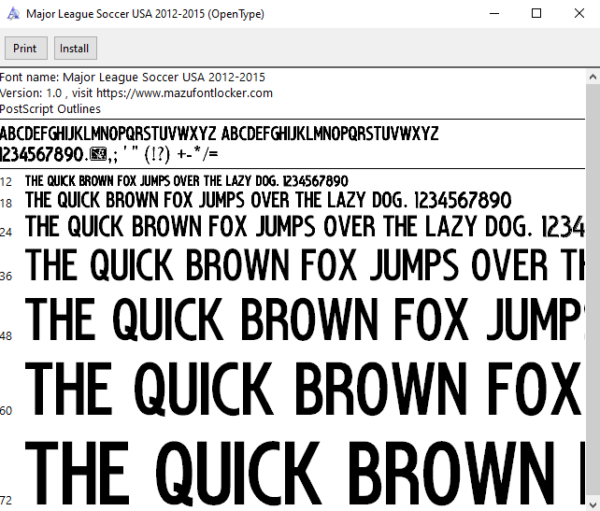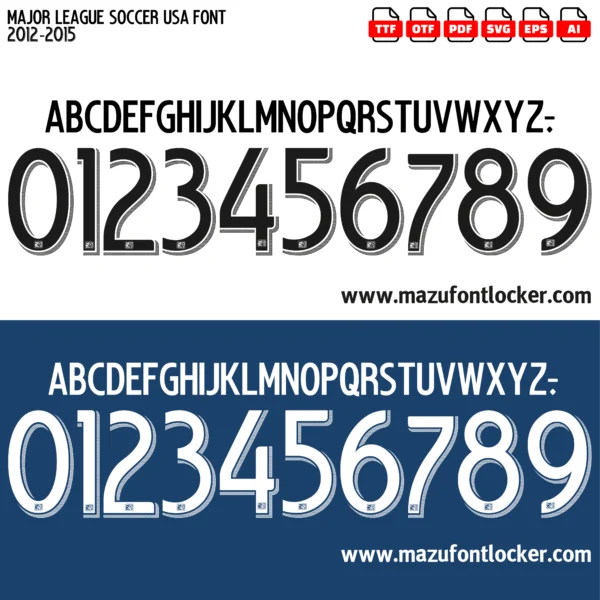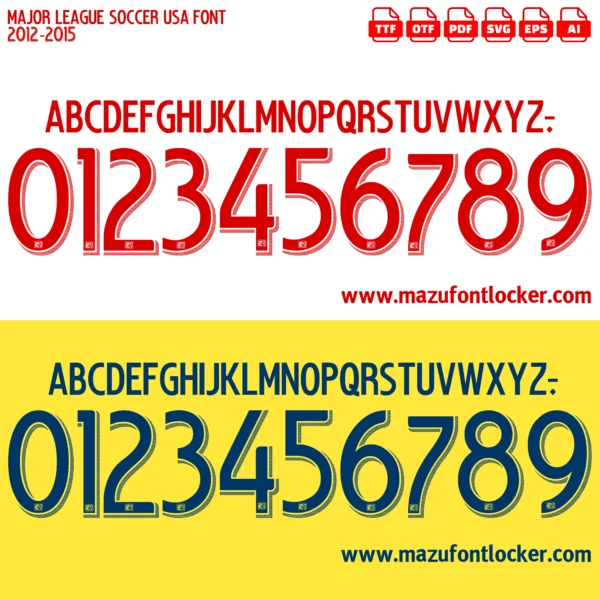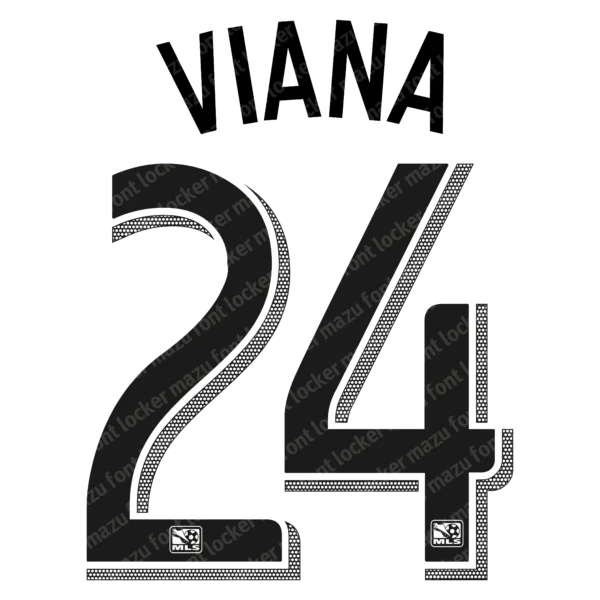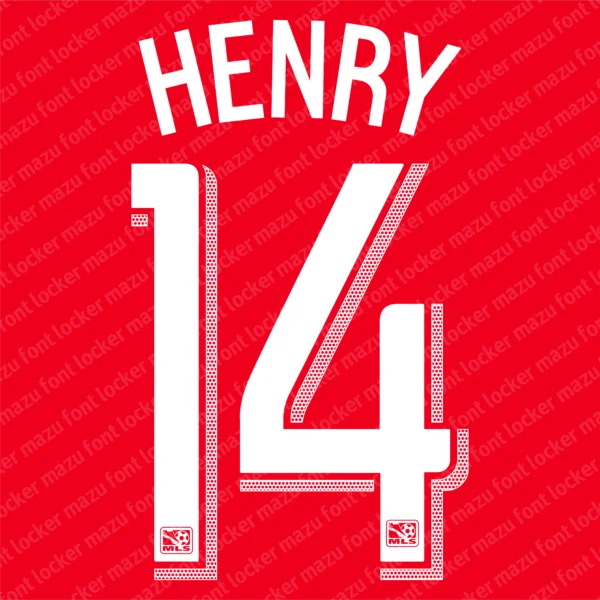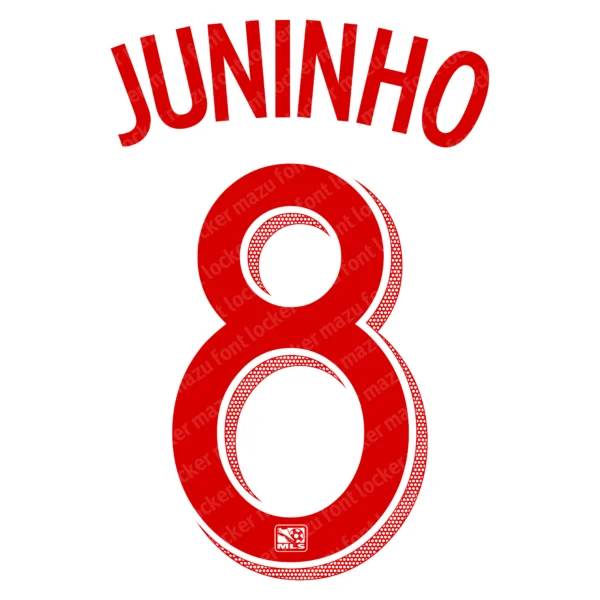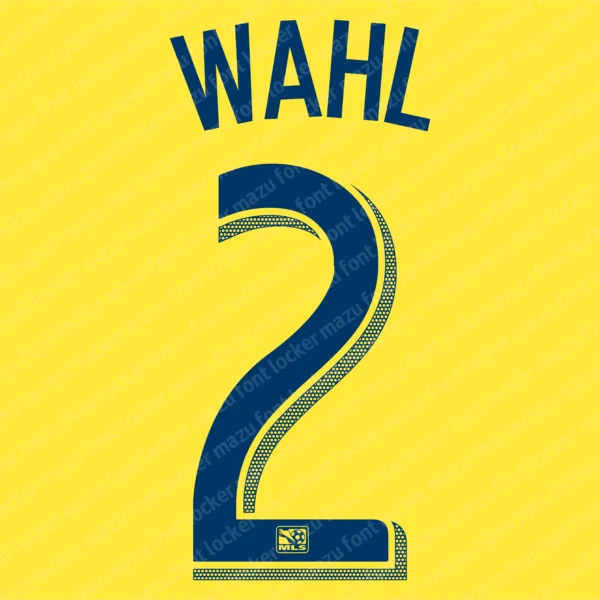
Major League Soccer USA 2012-2015 Font Vector – Legendary American Soccer Masterpiece
This font locks in the aggressive, clean-cut, thunder-strike lettering that defines Major League Soccer’s iconic identity, USA soccer heritage, star-spangled passion, and elite North American power — delivering raw authenticity, premium punch, explosive intensity, and true MLS dominance for jersey mockups, dynamic sports graphics, pro branding, and high-impact fan designs.
Major League Soccer USA 2012-2015 Font Vector – Stunning MLS Red, White & Blue Typeface
The Major League Soccer USA 2012-2015 Font Vector is a premium typeface that accurately recreates the distinctive match lettering associated with Major League Soccer clubs during the 2012-2015 seasons. This high-quality vector font kit captures the bold, clean, and instantly recognizable typography that perfectly complements the league’s iconic American soccer identity.
Designed for professional designers, football enthusiasts, jersey collectors, and passionate MLS supporters, the Major League Soccer USA 2012-2015 Font Vector delivers exceptional authenticity for creating realistic jersey mockups, soccer merchandise, social media graphics, match posters, squad designs, and custom fan artwork. Every character has been carefully recreated to reflect the powerful and precise visual style of one of North America’s most dynamic professional soccer leagues.
Why Choose Major League Soccer USA 2012-2015 Font Vector
This font stands out thanks to its precise vector construction and authentic league-inspired styling. Every letter and numeral has been meticulously recreated to match the distinctive football lettering aesthetic associated with Major League Soccer during the 2012-2015 seasons and its domestic and international campaigns.
Whether you’re producing professional soccer kit templates, custom jersey concepts, or eye-catching football content, the Major League Soccer USA 2012-2015 Font Vector delivers a genuine match-ready appearance inspired by the identity of MLS clubs across the United States and Canada.
The lettering featured in the Major League Soccer USA 2012-2015 Font Vector combines clean geometric lines with bold modern proportions. The result is a premium and highly readable typeface that reflects MLS’s growing football heritage, iconic red, white and blue colors, American soccer identity, and passionate fanbase across the league.
The numerals feature balanced curves, sharp edges, and consistent spacing for maximum readability on soccer jerseys and digital media. Built entirely as scalable vectors, every number remains crisp and clear for jersey customization, posters, banners, print projects, social media graphics, and high-resolution football artwork.
• Complete uppercase A–Z alphabet and numbers 0–9 in authentic Major League Soccer USA 2012-2015 inspired style
Major League Soccer USA 2012-2015 Seasons
The 2012-2015 period marked an exciting chapter for Major League Soccer as the league continued to expand, grow in popularity, and develop competitive domestic and international campaigns. Clubs prepared for each season with preseason fixtures and training while building momentum across the MLS regular season, playoffs, and beyond. Wearing their distinctive club colors alongside the league’s strong American soccer identity, MLS teams continued to represent a proud football tradition built on passion, community spirit, and a growing connection with supporters across stadiums in the United States and Canada.
The Major League Soccer USA 2012-2015 Font Vector is inspired by the distinctive football typography and visual identity associated with this era, making it an excellent choice for designers creating custom jersey concepts, soccer posters, squad graphics, matchday artwork, and fan-made projects. For official league information, news, team updates, fixtures, and match information, visit the official Major League Soccer website.
The Major League Soccer USA 2012-2015 Font Vector is an independently designed typeface package inspired by the official shirt lettering and visual identity associated with Major League Soccer during the 2012-2015 football seasons. It has been carefully recreated for soccer enthusiasts, graphic designers, collectors, jersey creators, and fans producing custom football concepts, digital artwork, and fan-made projects. Please note that this is a fan-made design resource and is not an official product of Major League Soccer, the United States Soccer Federation, CONCACAF, or any associated organization.